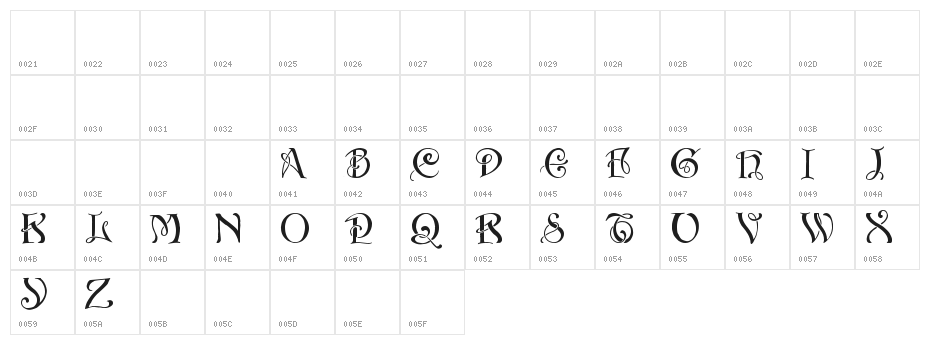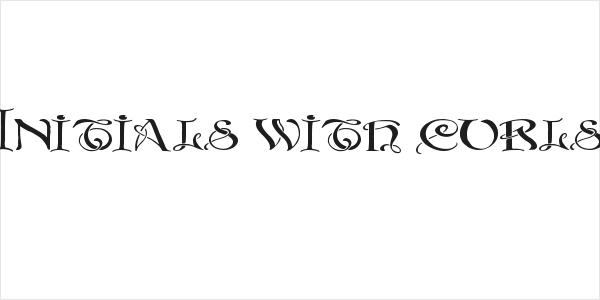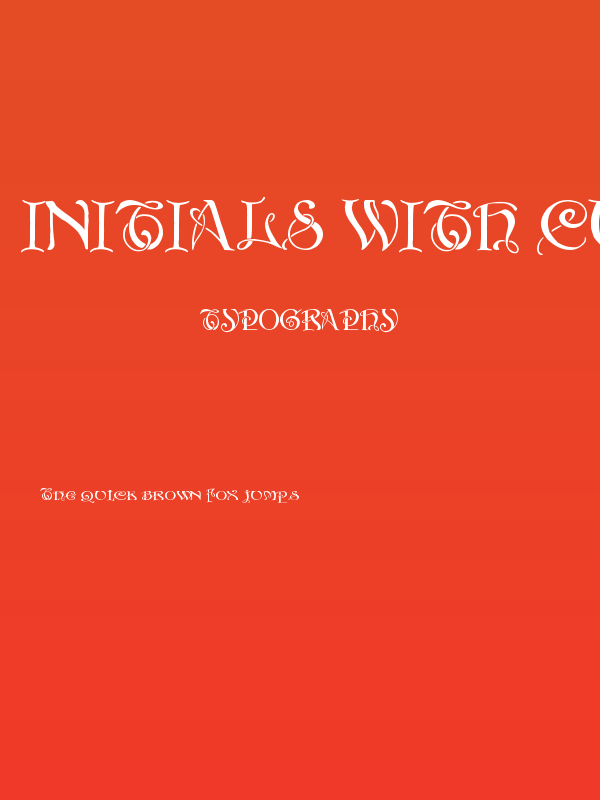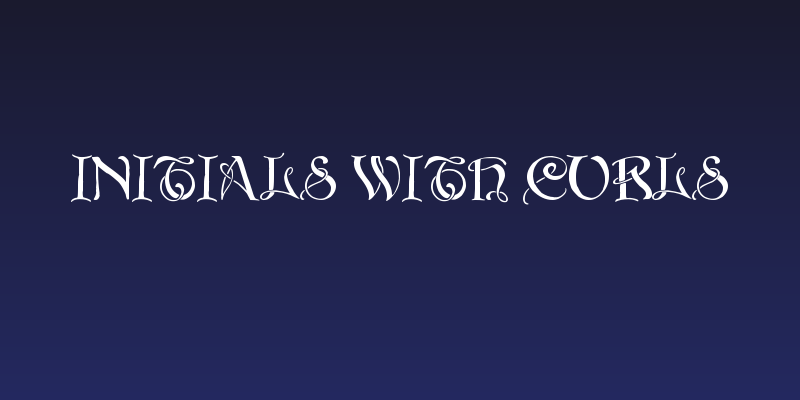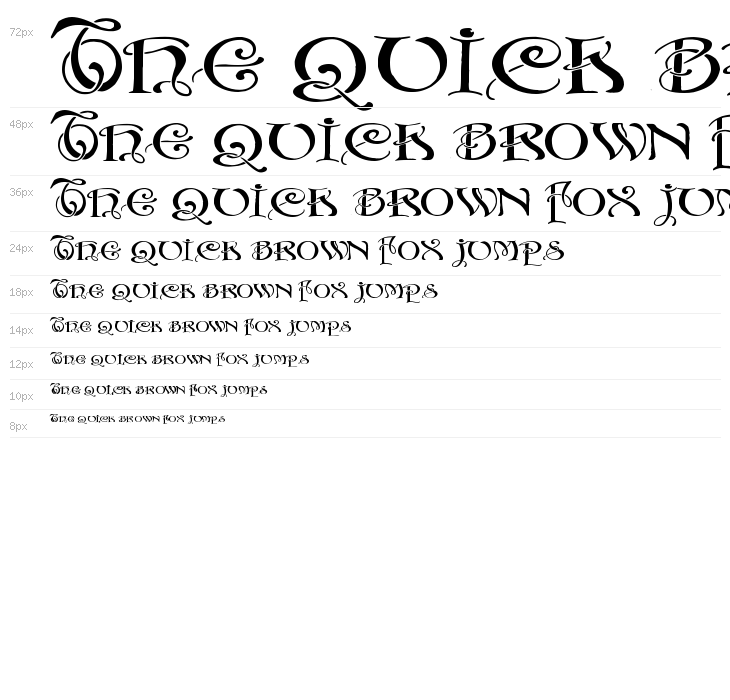
Initials with curls Font
Initials with curls Description
This font features an elaborate and decorative style with intricate curls and flourishes extending from each letter. The uppercase letters are particularly ornate, with each character exhibiting unique embellishments that give the font a whimsical and artistic appearance. The strokes are bold and consistent, providing a strong visual impact. The overall design is reminiscent of calligraphic styles, yet it maintains a modern twist with its symmetrical and balanced forms. This font is ideal for creating eye-catching headlines or titles that require a touch of elegance and sophistication.